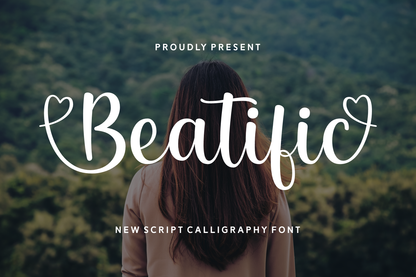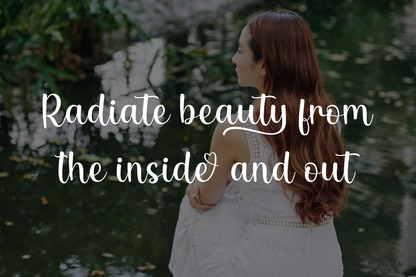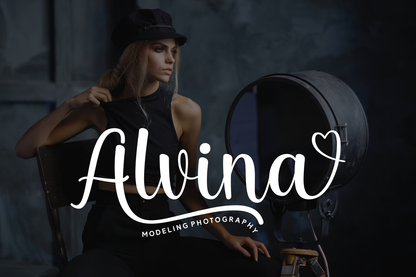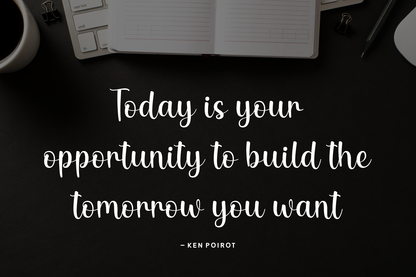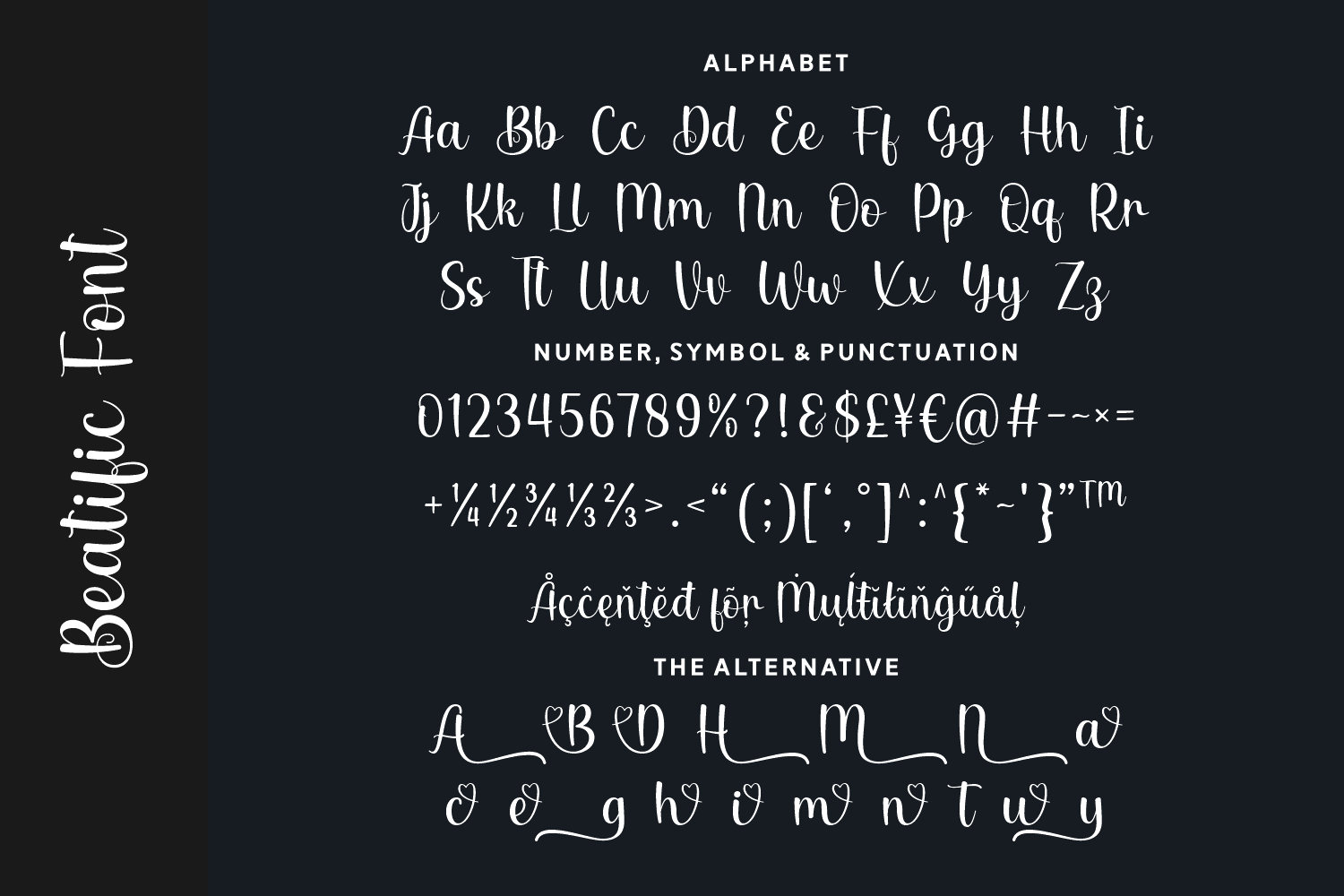
Beatific is a charming script calligraphy font with a delightful mix of sweet curves and whimsical heart accents. Its graceful strokes and youthful personality make it perfect for wedding invitations, greeting cards, branding, and social media content. With its handwritten charm and romantic flair, Beatific brings heartfelt warmth to every design.